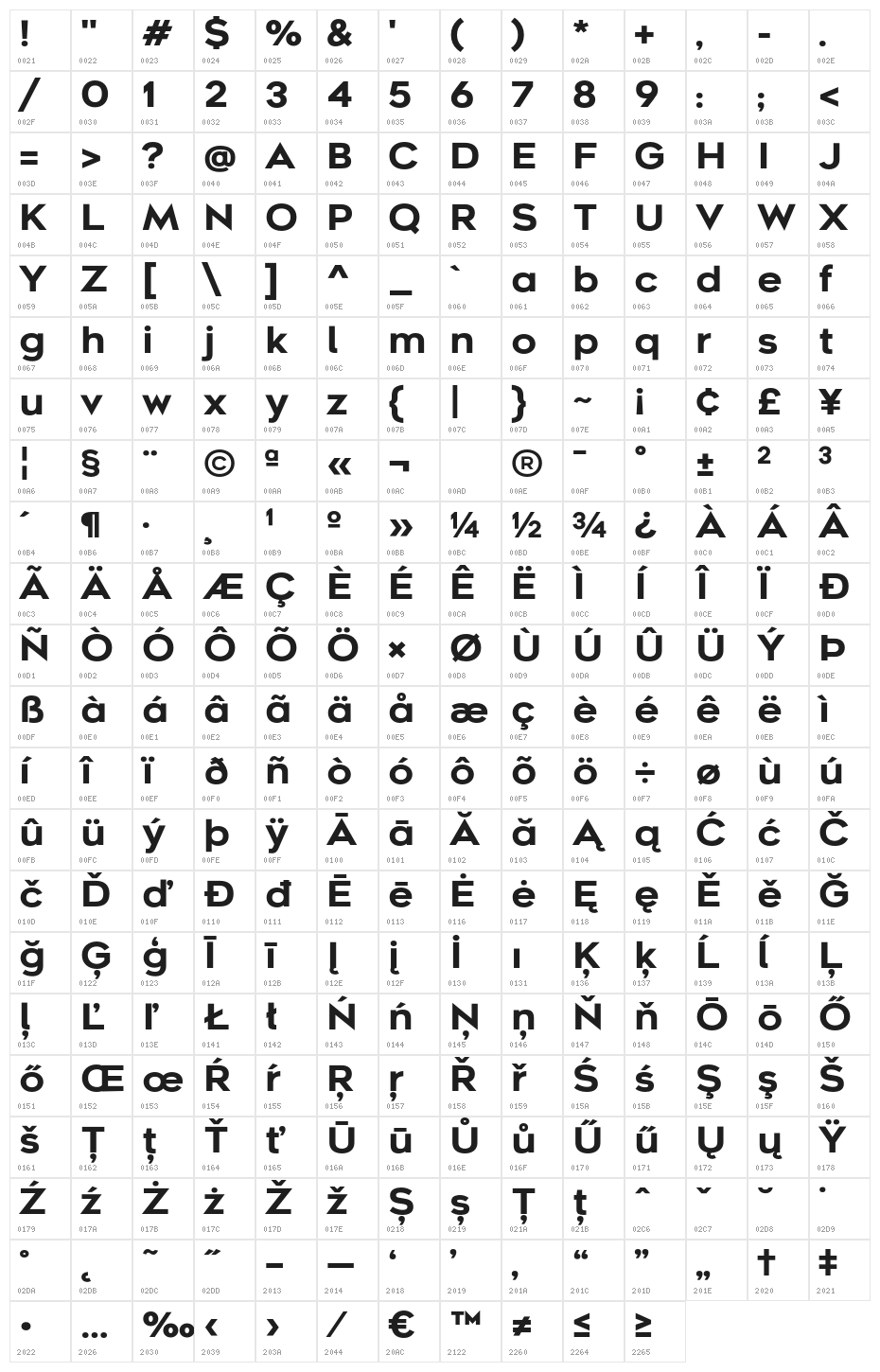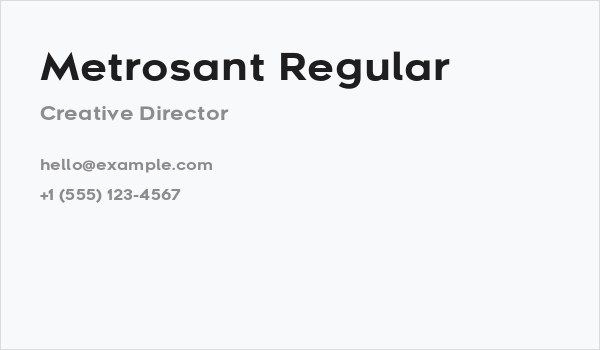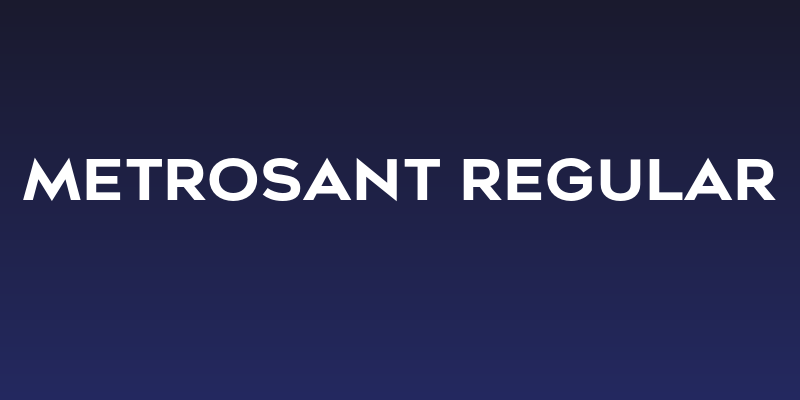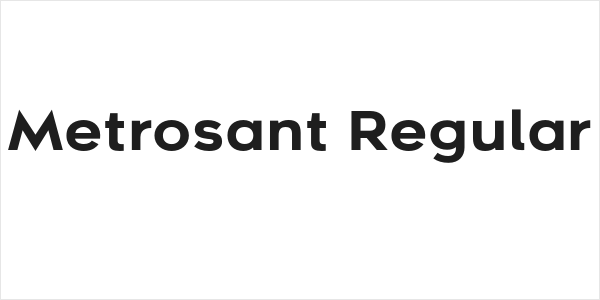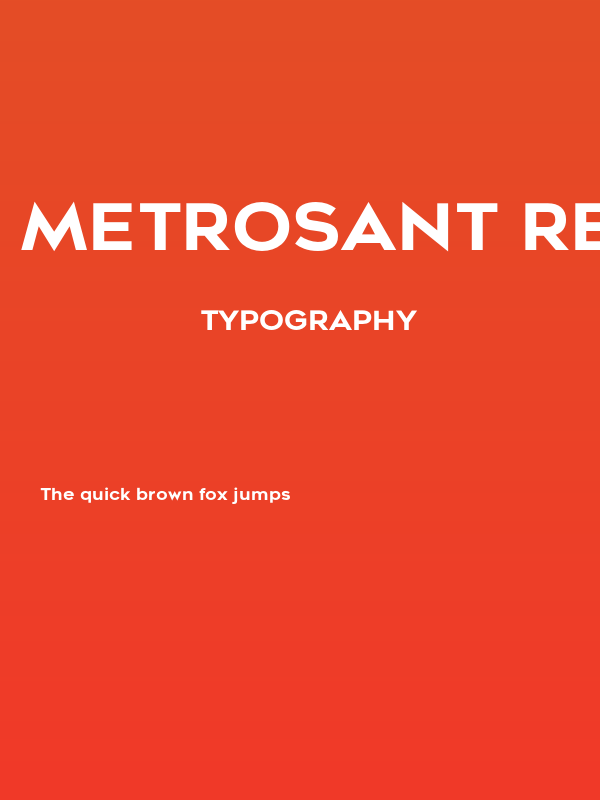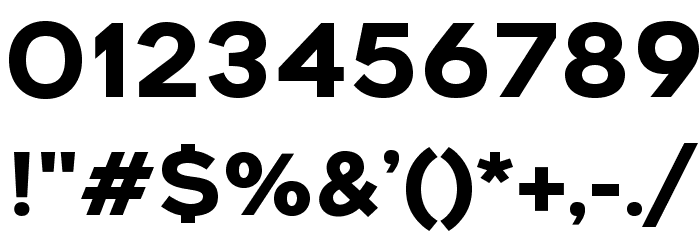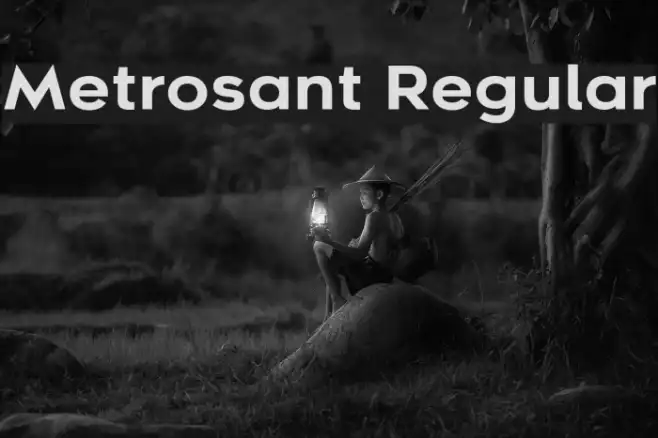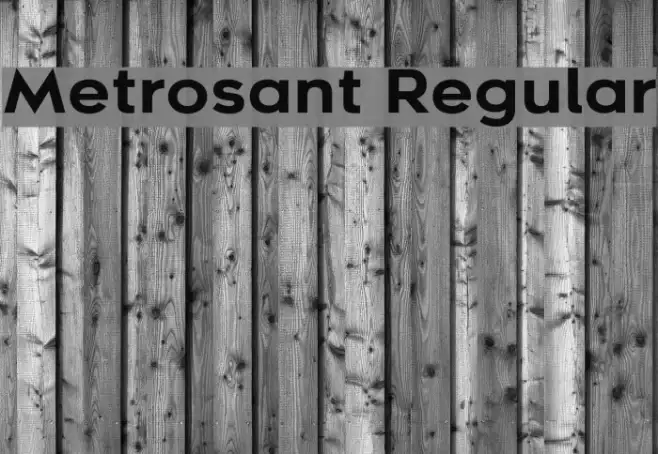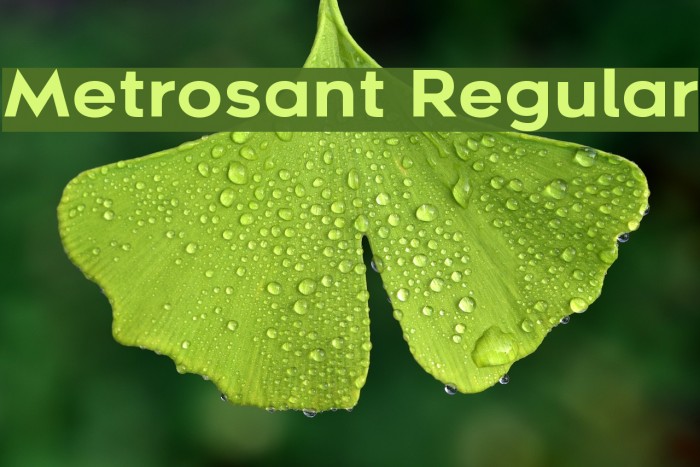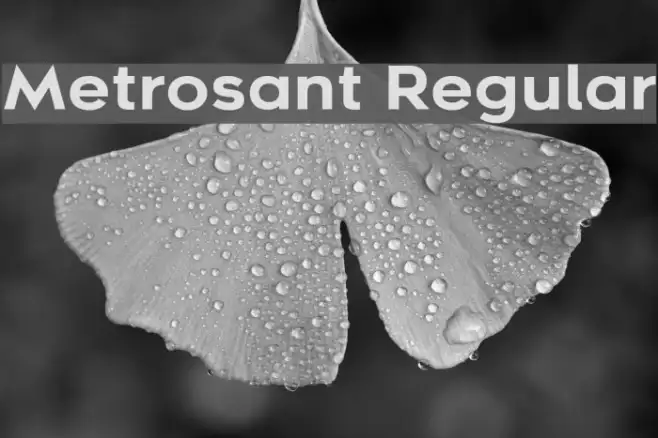
Metrosant Regular Font
Metrosant Regular Description
This font features a clean and modern sans-serif design with a geometric structure. The characters are bold and evenly weighted, providing a strong visual presence. The uppercase letters are uniform in height, while the lowercase letters maintain a consistent baseline, enhancing readability. The numerals are clear and distinct, making them suitable for various applications. Special characters are well-defined, adding versatility to the font's use. The overall appearance is sleek and professional, making it ideal for contemporary design projects.
| Proposed Projects | Ideal for branding, advertising, web design, and editorial projects where a modern and clean look is desired. |